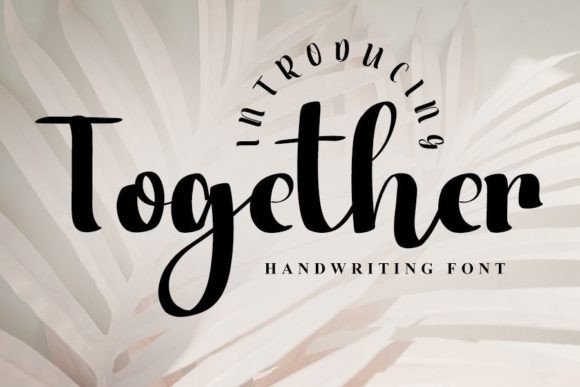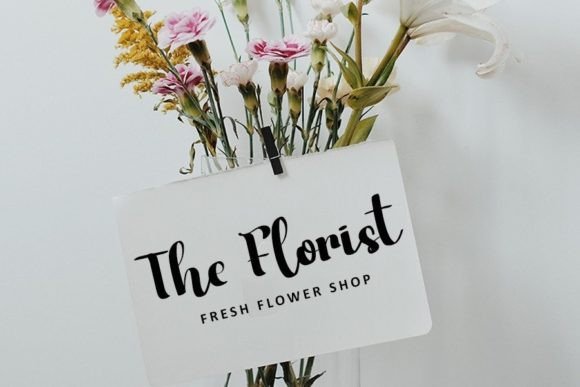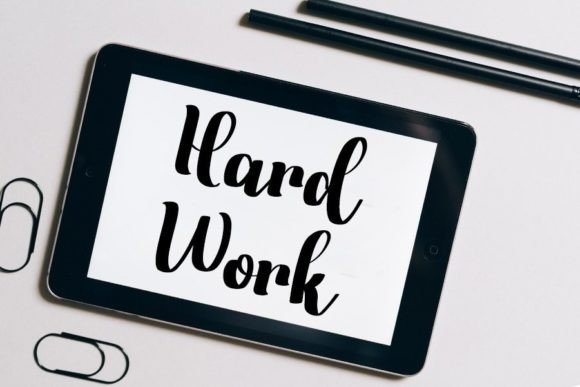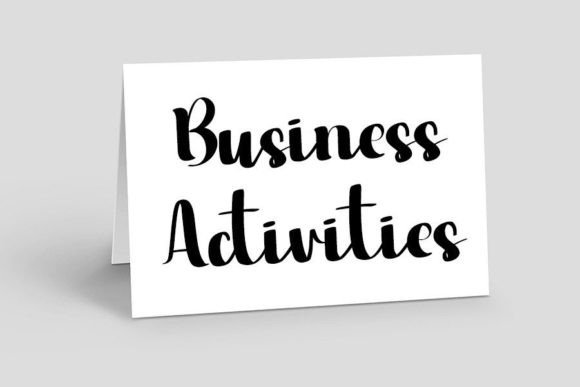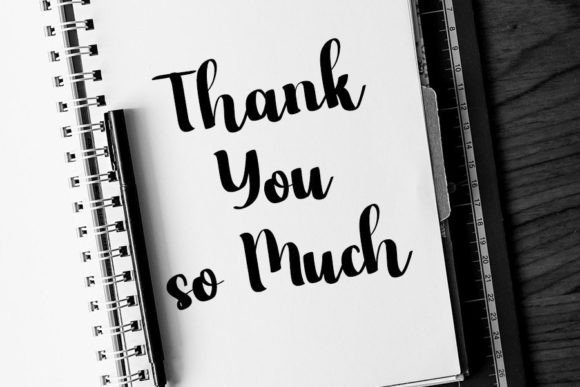
Together Font
About Together Font
“Together” is a meticulously crafted handwritten font that combines neatness with elegance, creating a visually appealing typeface suitable for a variety of creative projects. Its beauty lies in its simplicity and sophistication, making it an excellent choice for designers who appreciate the allure of handwritten typography. With its distinct and timeless style, “Together” captures attention and adds a touch of refinement to any design it graces.
The font’s clean and well-defined characters showcase a level of precision that enhances readability while exuding a sense of handwritten charm. Each stroke is carefully crafted, emphasizing the font’s neat and beautiful aesthetic. “Together” is versatile, seamlessly adapting to different design contexts, from invitations to branding materials and beyond. Its elegant touch elevates any project, allowing designers to create visually spectacular and memorable designs.
One of the standout features of “Together” is its ability to convey a sense of timelessness. Its classic style ensures that it remains relevant across various design trends, giving it enduring appeal. This enduring quality makes “Together” a valuable asset for designers seeking a font that transcends temporary fads, providing a timeless essence to their creations.
Whether you’re working on wedding invitations, logo designs, packaging, or any other project that demands sophistication and elegance, “Together” offers a refined solution. Its unique charm and elegant demeanor set the stage for visually striking designs, capturing the essence of grace and beauty. Designers and creators can fall in love with the font’s distinct character, using it as a tool to craft extraordinary designs that leave a lasting impression on their audience.
“Together” invites you to explore the world of exquisite design, where every letter carries an air of elegance. Its timeless style and distinct personality make it an excellent choice for those who value the artistry of typography. Embrace the allure of “Together,” and let your creativity shine as you create spectacular designs that stand out and captivate viewers with their sophistication and charm.